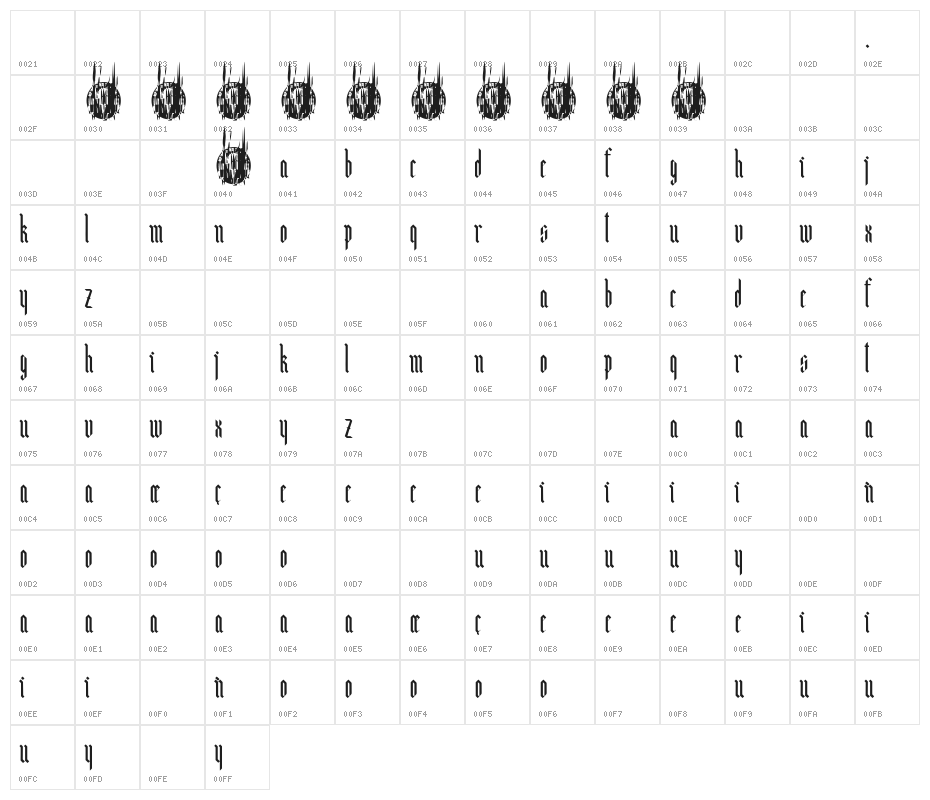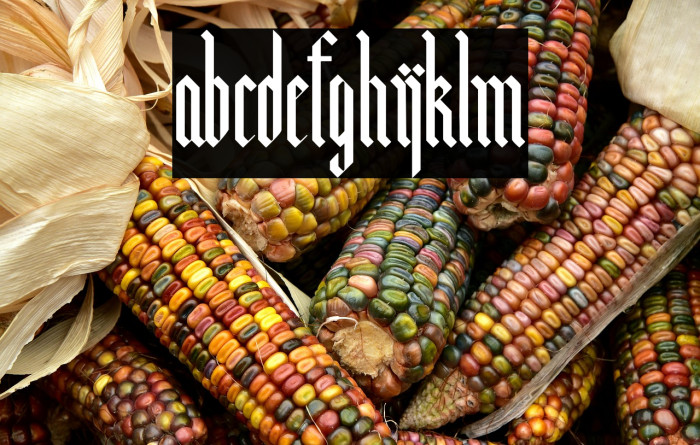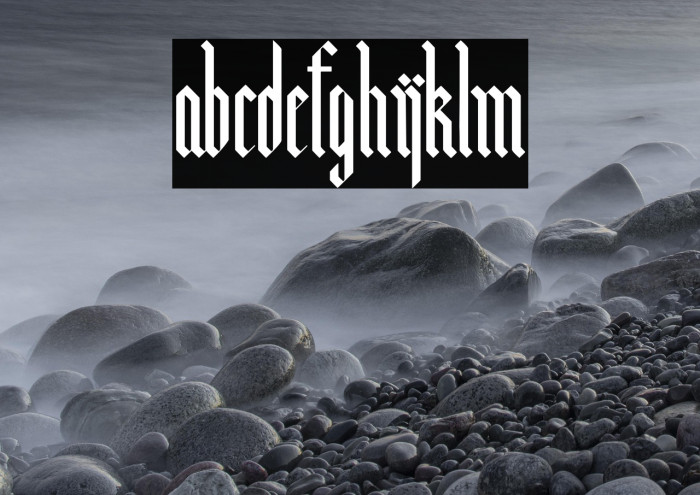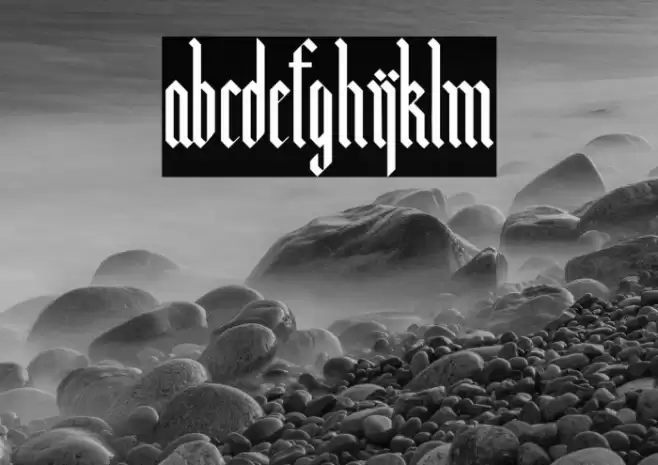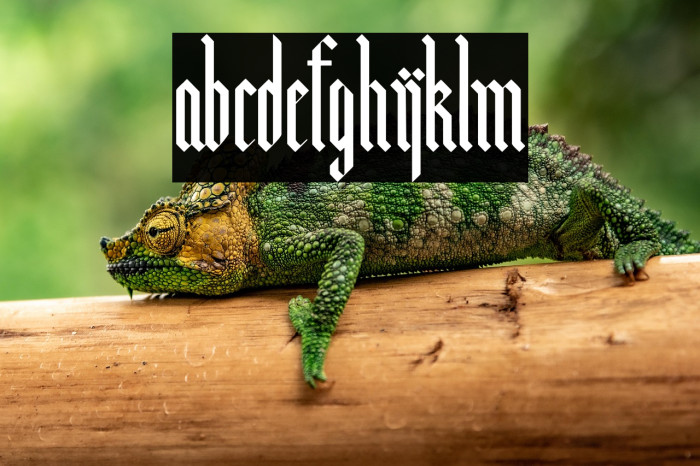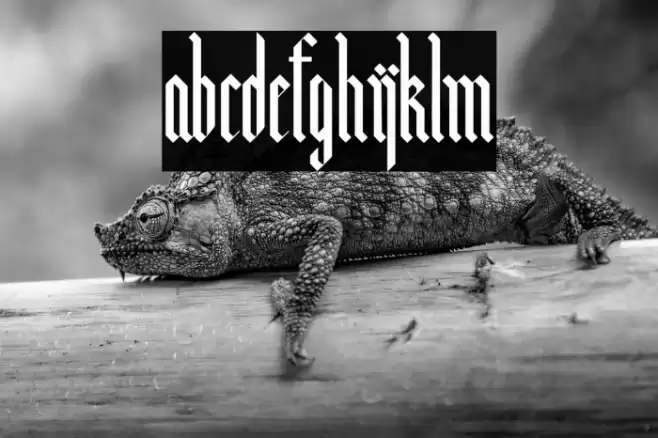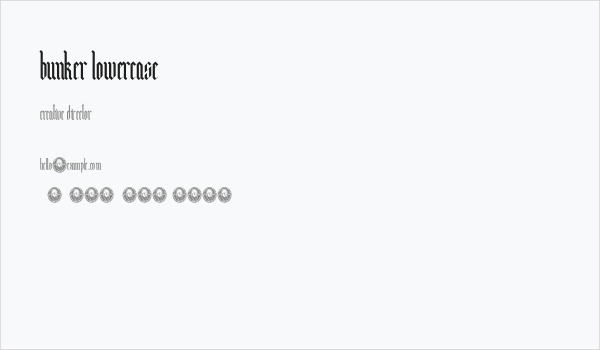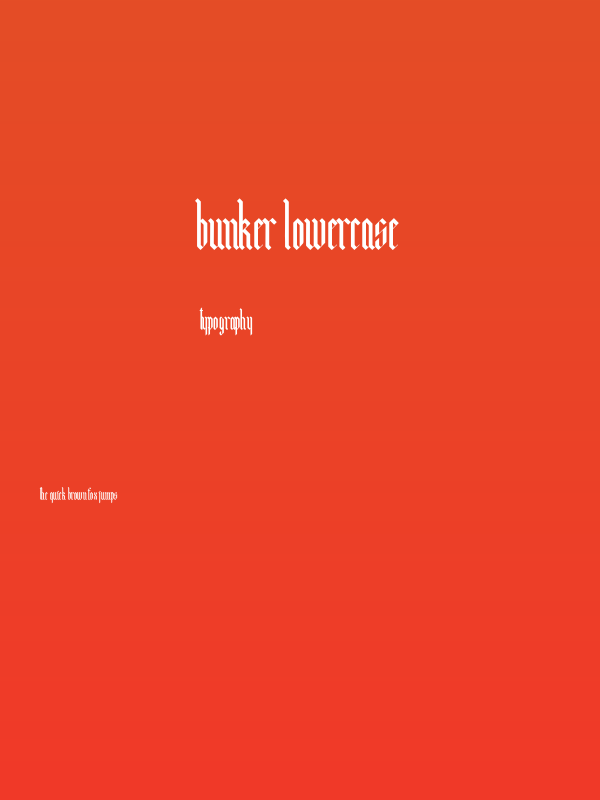
Bunker Lowercase Font
Bunker Lowercase Description
This font features a bold and striking blackletter style, characterized by its sharp, angular lines and intricate detailing. The letters are tall and narrow, with a distinct medieval aesthetic that evokes a sense of tradition and history. The font's unique design includes elaborate serifs and flourishes, giving it a decorative and ornate appearance. It is well-suited for projects that require a dramatic and impactful visual presence, such as posters, logos, or branding materials that aim to convey a sense of heritage or authority.
| Use Case | Logos, Headlines, Decorative |
| Proposed Projects | Ideal for use in branding, posters, and logos that require a dramatic and historical feel. |